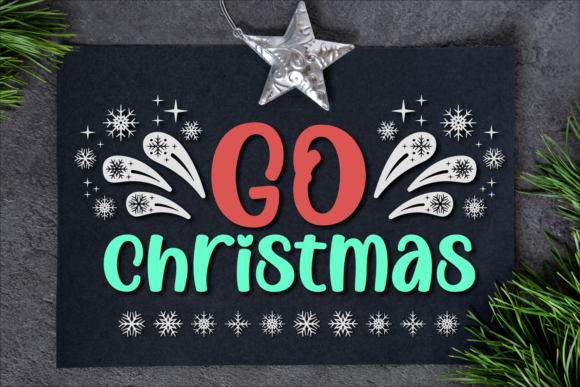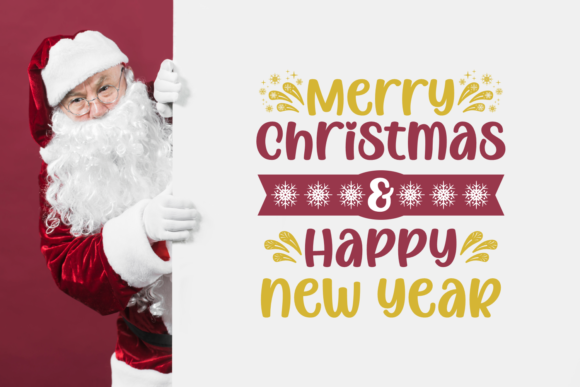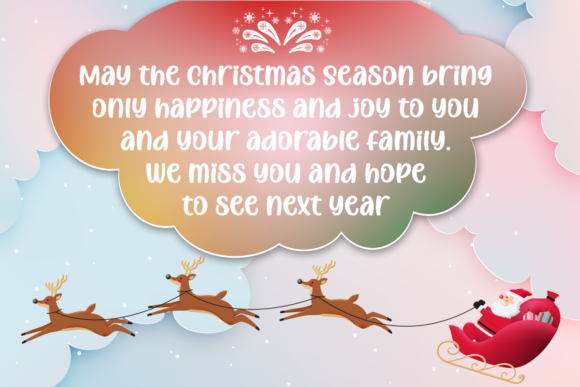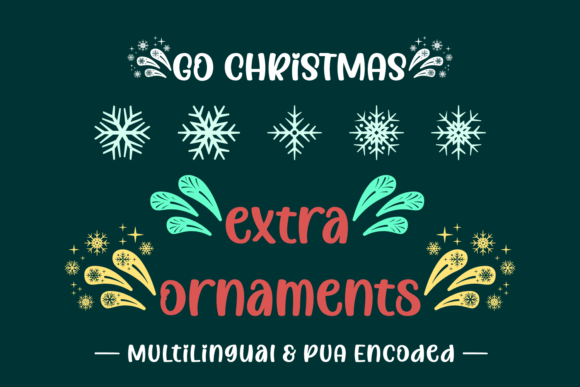
Go Christmas Font
About Go Christmas Font
Go Christmas is a neat, cute and thick lettered handwritten font. No matter the topic, this font will be an incredibly asset to your fonts’ library, as it has the potential to elevate any creation.